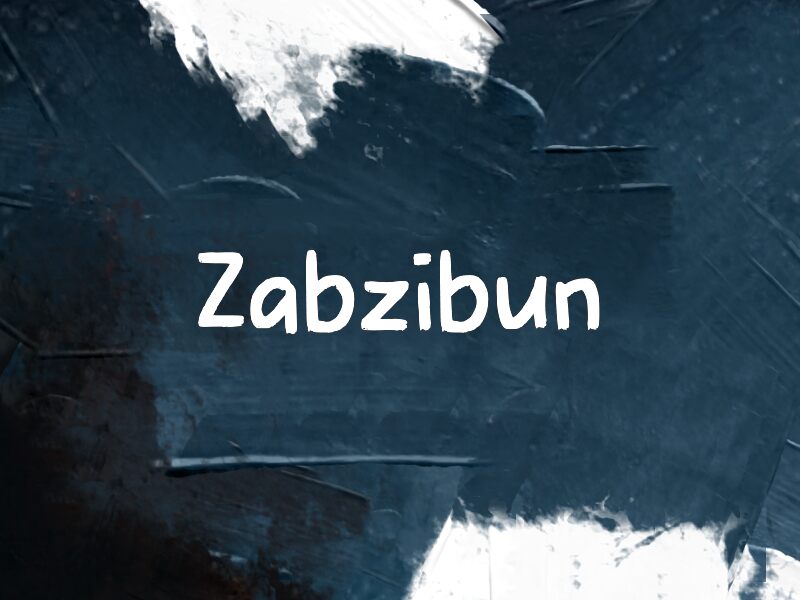
Zabzibun
Zabzibun font by wepfont.com is a free handwritten font that captures the feel of a thick marker scrawled with confidence. The letters are rounded, bold, and slightly irregular, giving it a friendly, doodled energy without slipping into chaos. It reads clearly even at smaller sizes, with inky, filled-in strokes that feel playful and tactile, like writing on a whiteboard or a notebook margin.
Using Zabzibun, you can easily bring warmth and personality to kids’ book covers, classroom posters, comic panels, social media graphics, casual logos, and handmade-style packaging. This free font shines on bold titles and short phrases; pair it with a simple sans serif for supporting text to keep layouts clean and readable. It’s a natural fit whenever you need something that feels human, approachable, and a little bit fun.